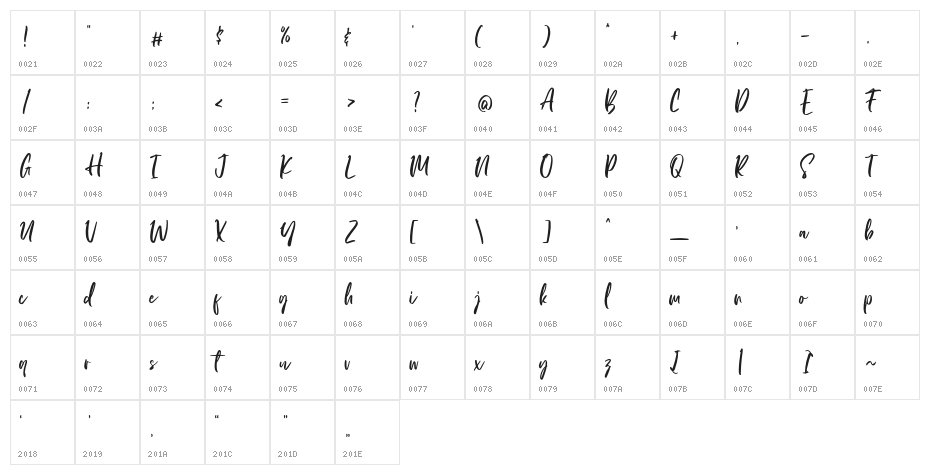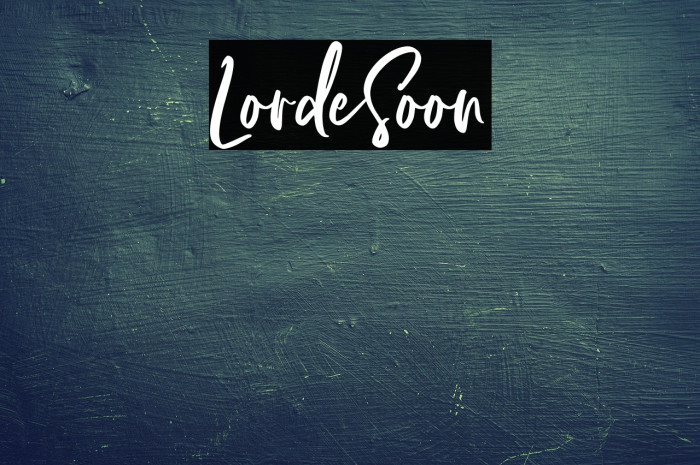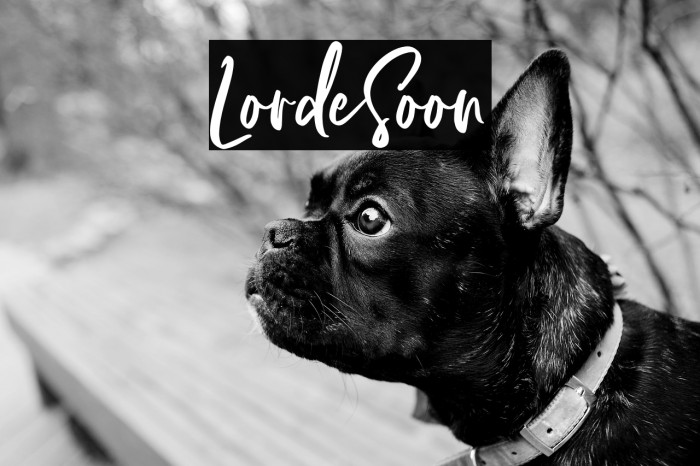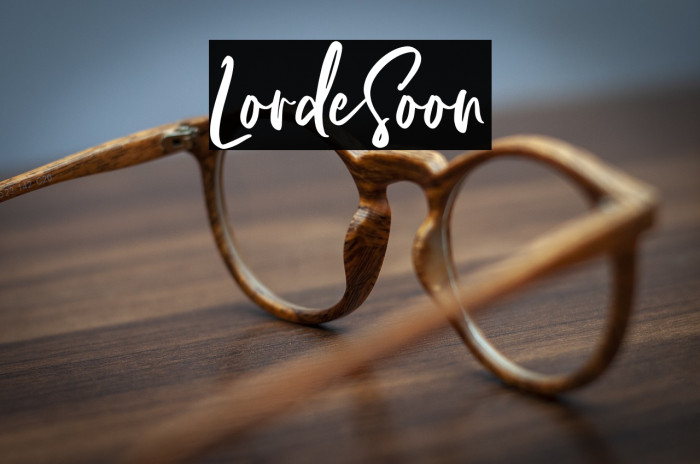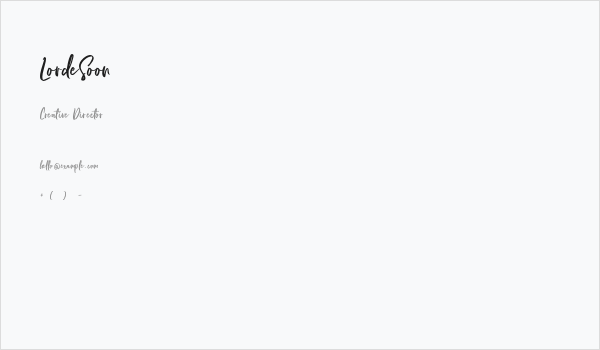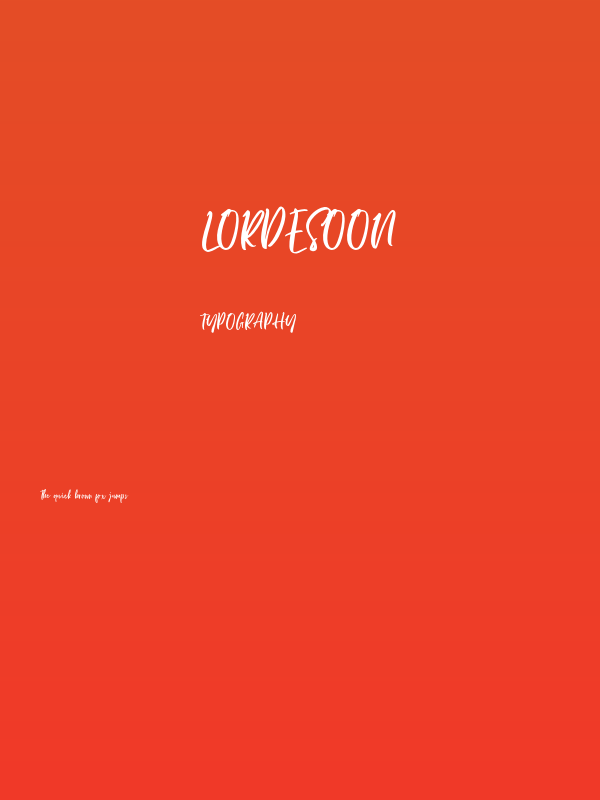
LordeSoon Font
LordeSoon Description
This font features a lively and expressive handwritten style, characterized by its fluid and dynamic strokes. The uppercase letters are bold and slightly slanted, giving a sense of movement and energy. The lowercase letters maintain a consistent flow, with some characters extending below the baseline, adding to its casual and artistic appeal. The numerals and special characters are crafted with the same attention to detail, ensuring a cohesive look across all text. This font's brush-like appearance makes it ideal for projects that require a personal touch.
Use CaseLogos, Headlines, Invitations
Proposed ProjectsIdeal for greeting cards, invitations, branding, and social media graphics where a personal and artistic touch is desired.